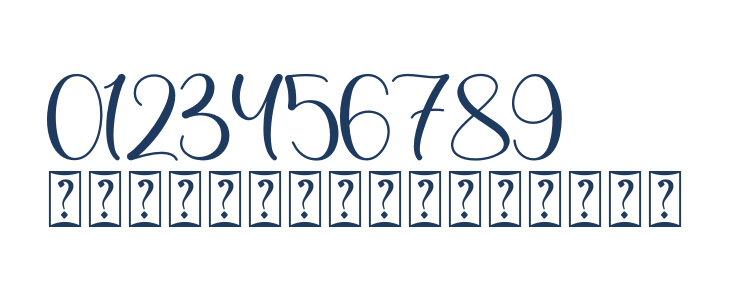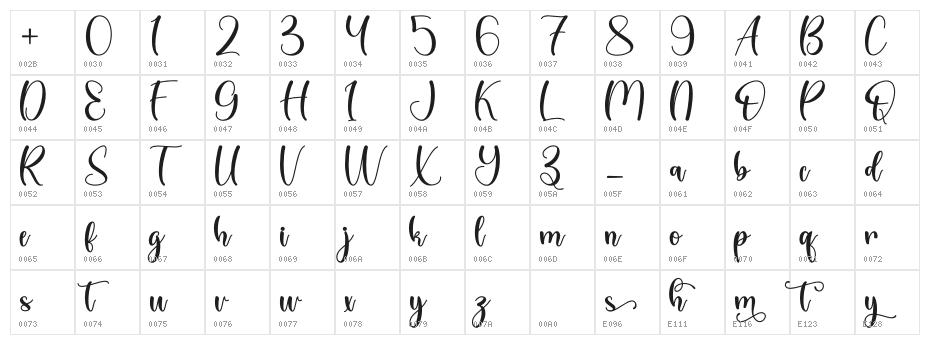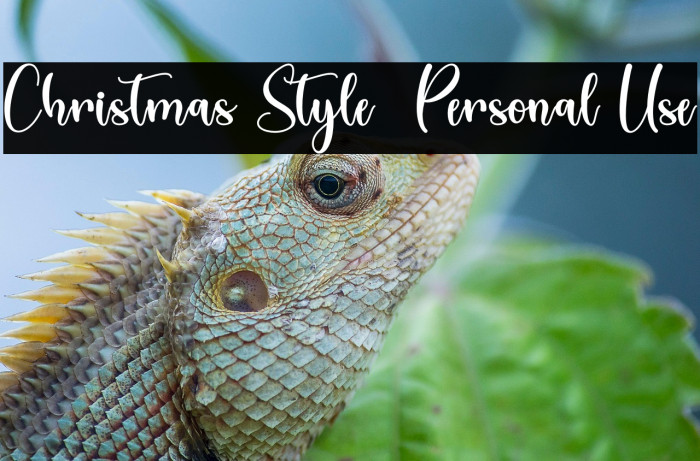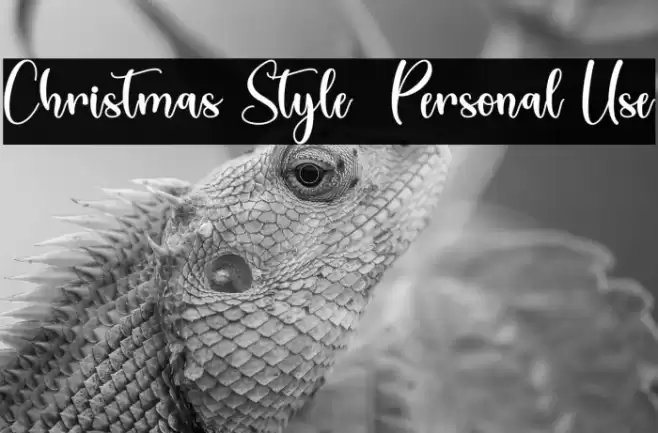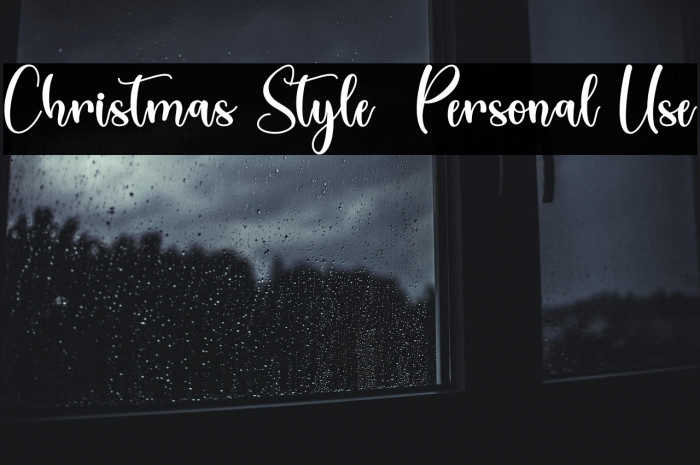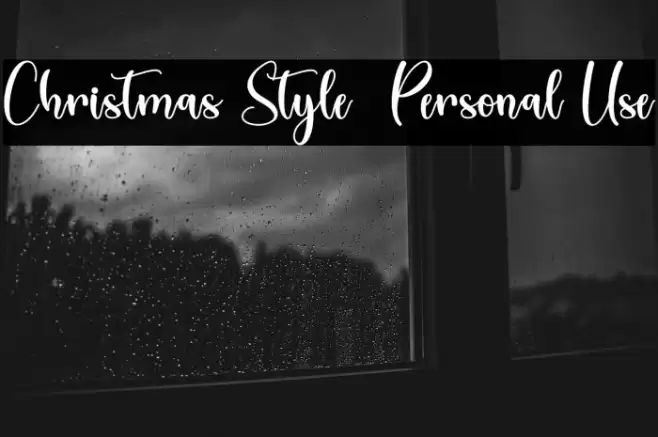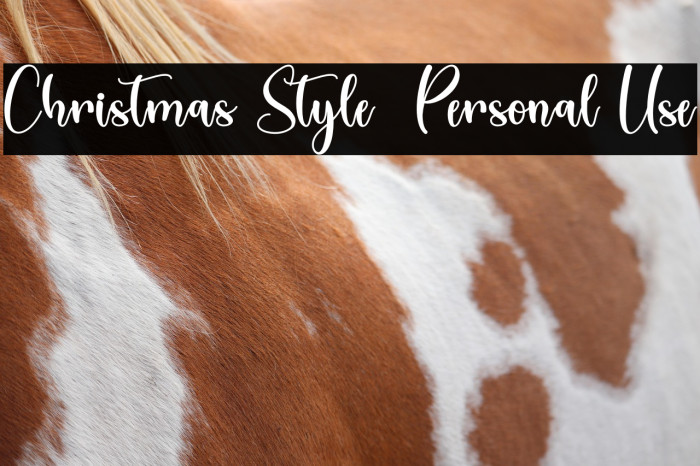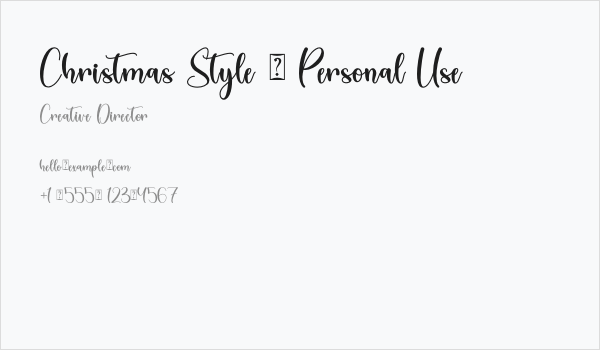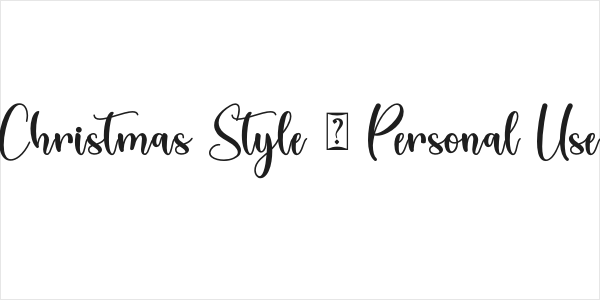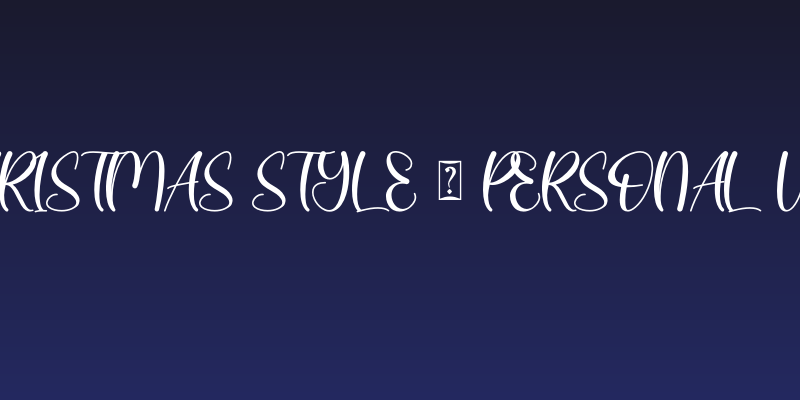
Christmas Style - Personal Use Font
Christmas Style - Personal Use Description
This font exudes a festive and elegant charm, perfect for holiday-themed projects. The letters are crafted with a flowing, cursive style that adds a touch of sophistication and warmth. The uppercase letters are tall and graceful, while the lowercase letters maintain a consistent, smooth flow. The numbers are equally stylish, complementing the overall aesthetic. The font's playful yet refined nature makes it ideal for creating eye-catching designs. Its unique style is reminiscent of handwritten calligraphy, with a modern twist that enhances its versatility.